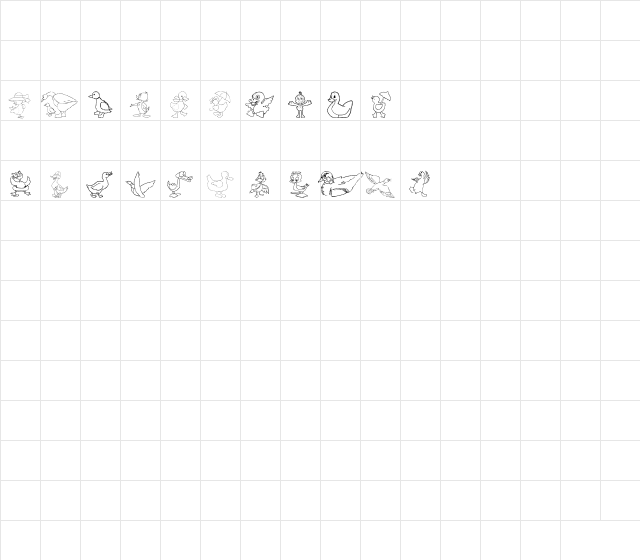
Complete AEZ here ducky, ducky glyph index. Displaying only characters natively supported by AEZ here ducky, ducky font.
AEZ here ducky, ducky is a composed and adaptable typeface that performs quietly and consistently across a wide range of design contexts.